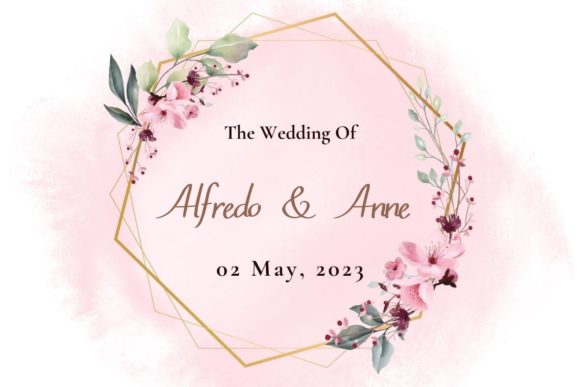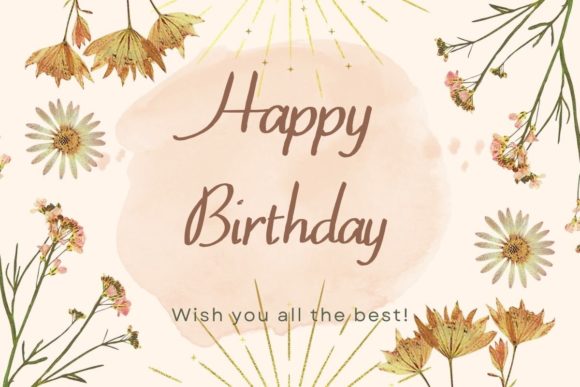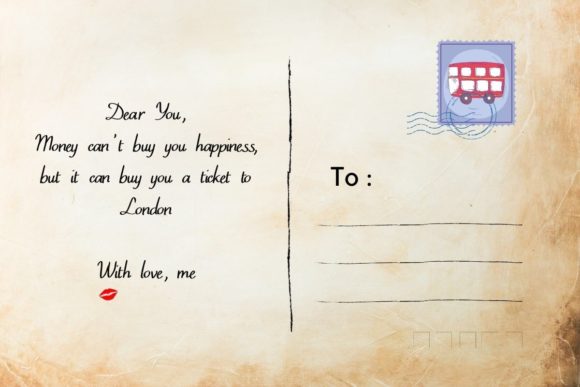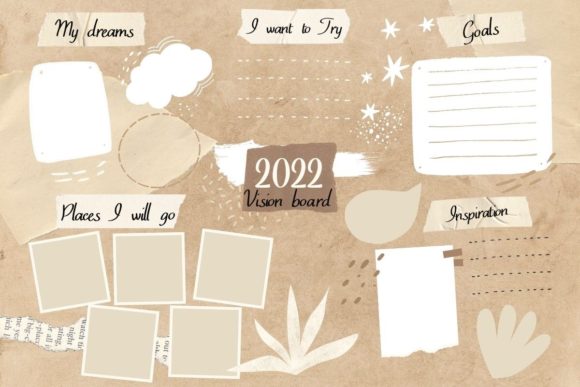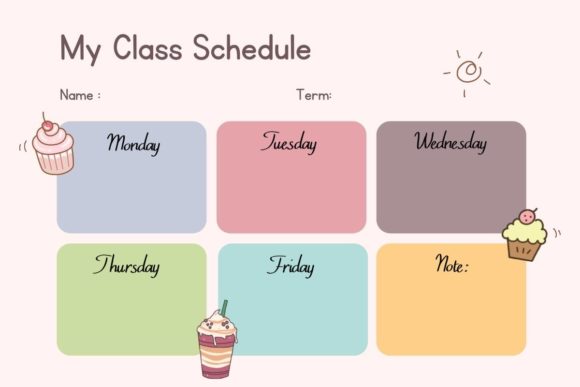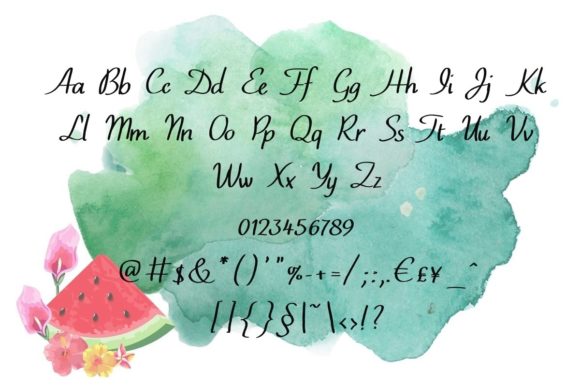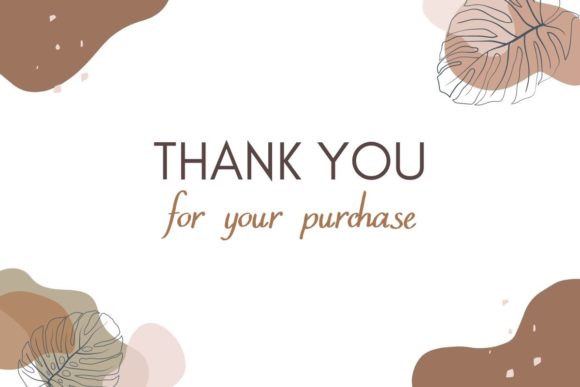
Watermelon Font
About Watermelon Font
“Watermelon” is a dazzling script font that adds a touch of brilliance to your design projects. Regardless of the topic or application, this font stands out as a wonderful asset to your font library, capable of enhancing any creation with its unique and eye-catching style.
The descriptor “dazzling” suggests that “Watermelon” possesses a vibrant and attention-grabbing quality. This makes the font suitable for a wide range of design contexts where you want to captivate and engage your audience.
As a script font, “Watermelon” likely features fluid and expressive strokes that emulate the natural flow of handwriting. This characteristic contributes to the font’s versatility, making it suitable for various creative endeavors.
Whether applied to branding projects, product packaging, promotional materials, or any design that requires a touch of flair, “Watermelon” has the potential to elevate the visual appeal. Its distinctive script style may bring a sense of personality and uniqueness to your creations.
In summary, “Watermelon” is described as a dazzling script font that stands out as a valuable asset for designers. Its potential to enhance any creation implies versatility and a captivating visual presence, making it a versatile choice for a diverse range of design projects.